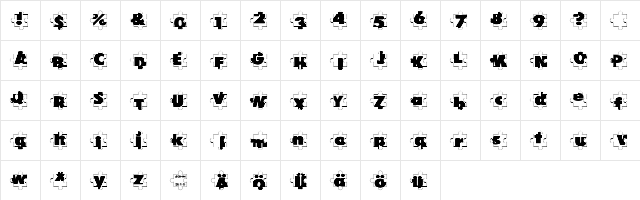
Puzzle Pieces Regular
Design Context for Puzzle Pieces Typeface
Puzzle Pieces is a composed and adaptable typeface that performs quietly and consistently across a wide range of design contexts.